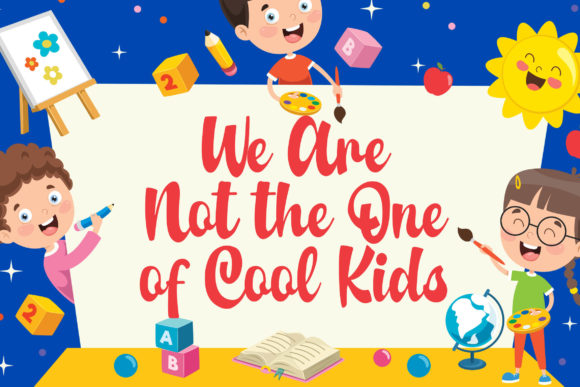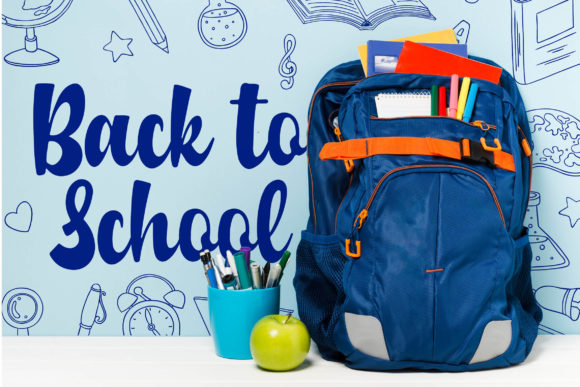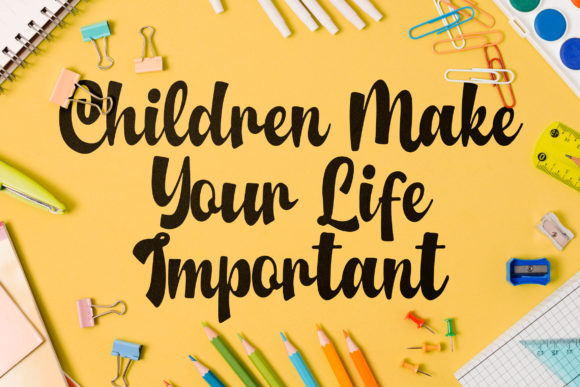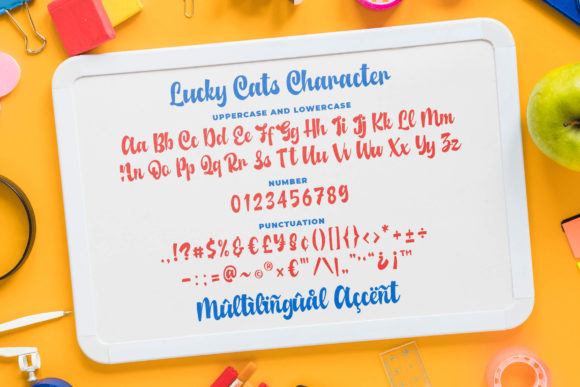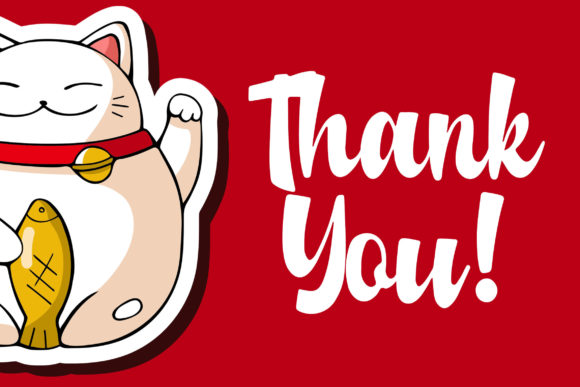
Introduction to Lucky Cats Font
Lucky Cats is a fancy script font with playful characters.
It will add a fun touch to any crafting project .
Key Features of Lucky Cats Font
Why Choose Lucky Cats Font?
Lucky Cats Font offers exceptional quality and versatility, making it a valuable addition to your design toolkit. Whether you’re creating for personal projects or commercial use, Lucky Cats Font delivers professional results.